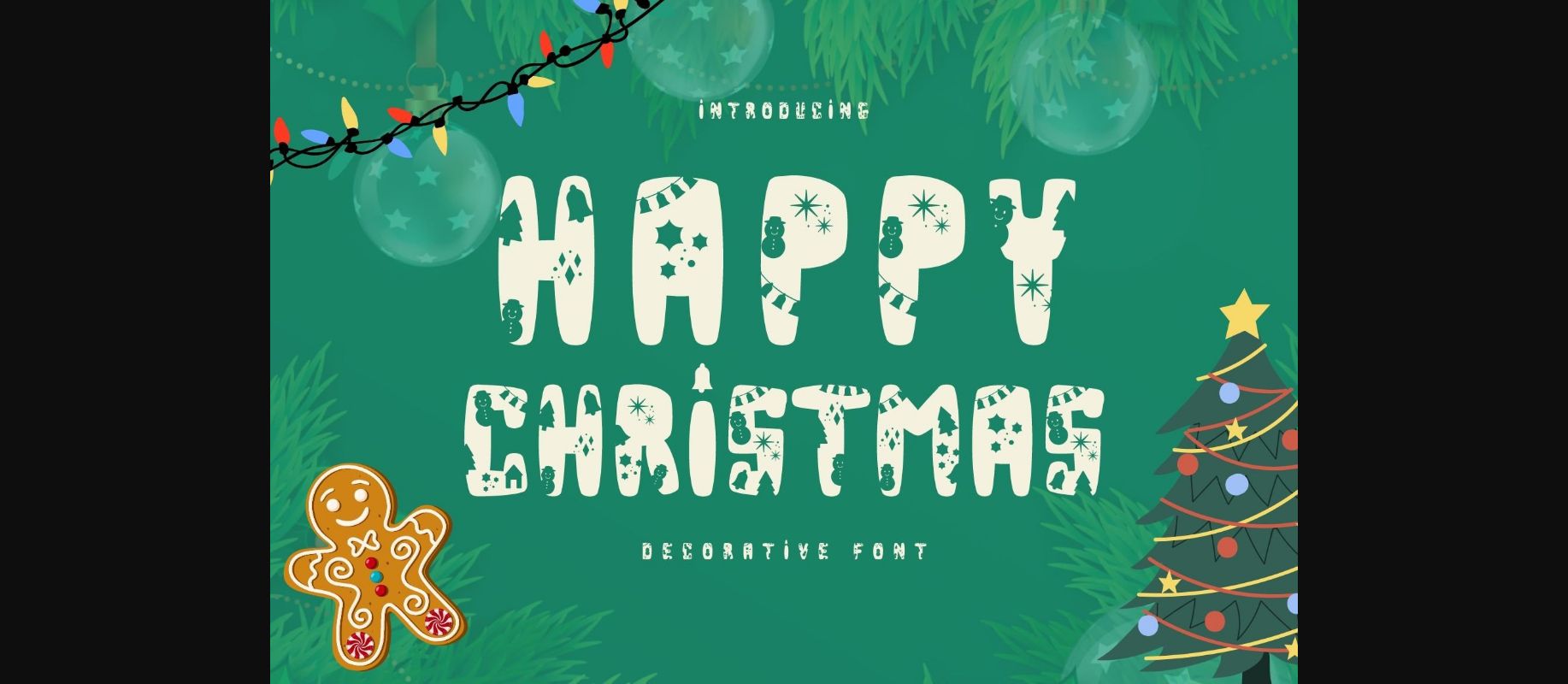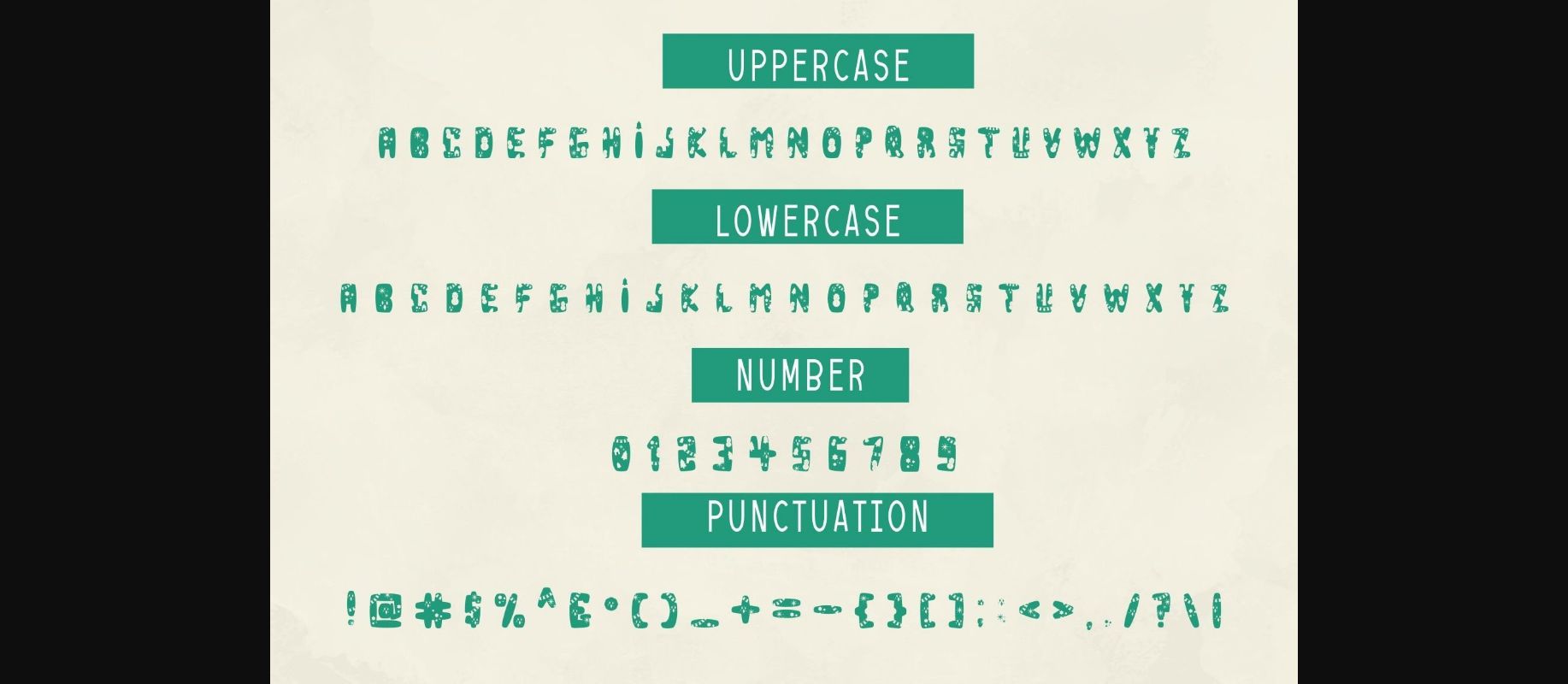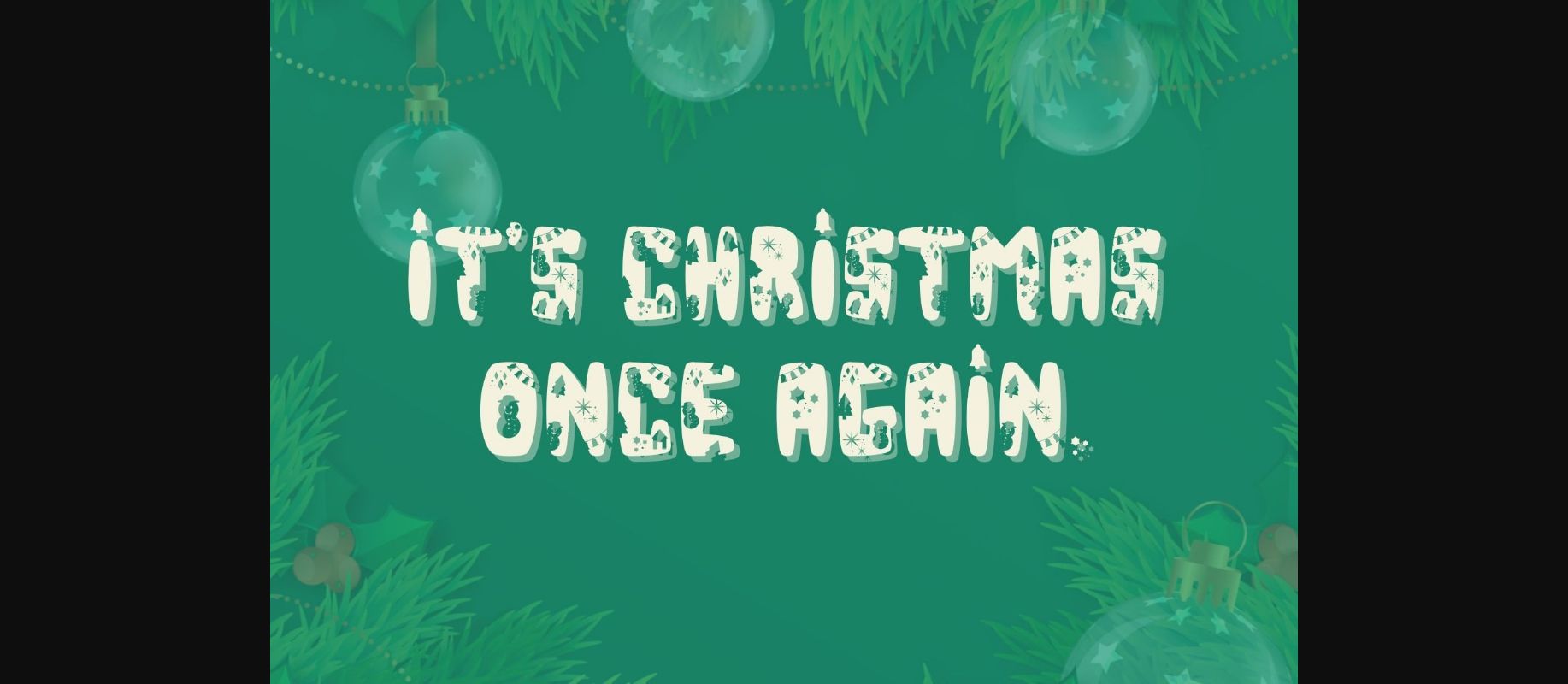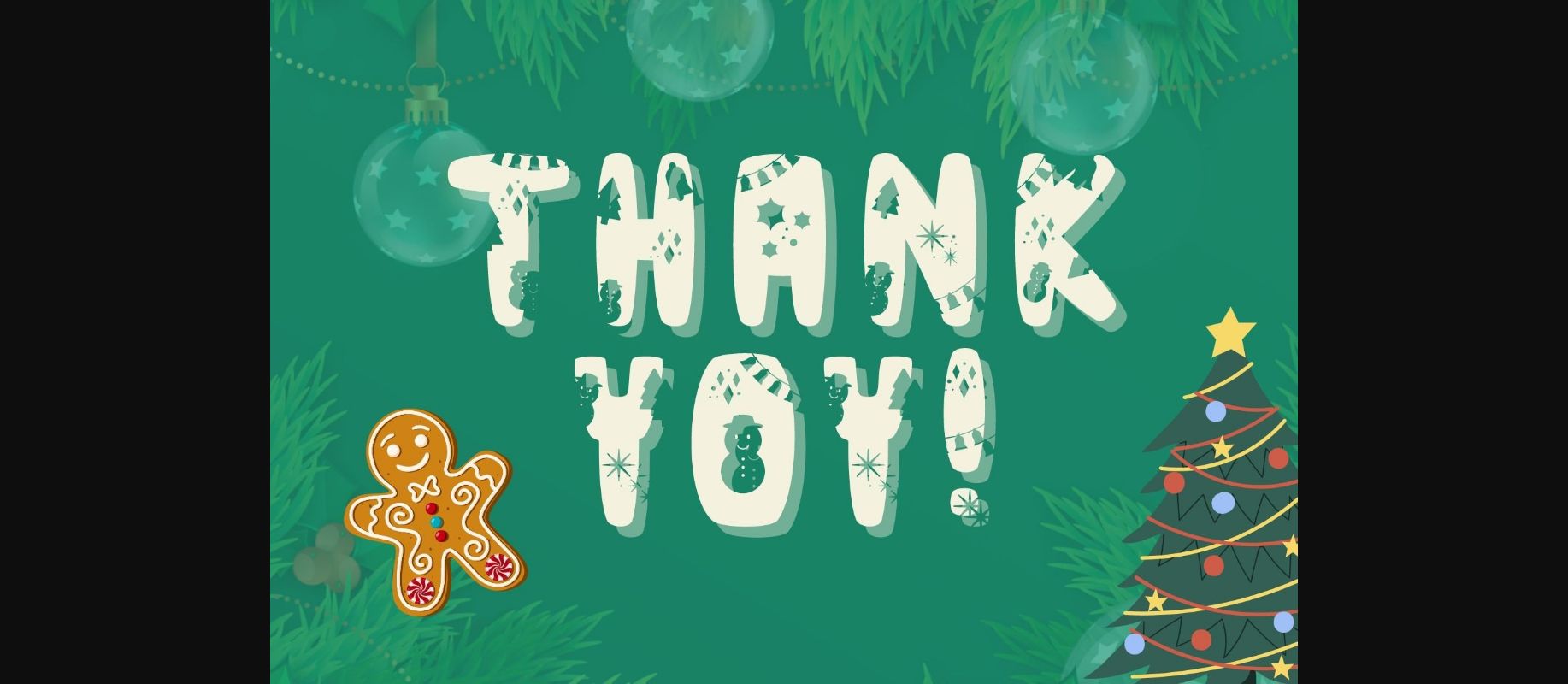
Happy Christmas Font
About Happy Christmas Font
Happy Christmas is a cute Christmas-themed decorative font. It embodies playfulness and authenticity and is the perfect choice for all your favorite projects.. Add it to any of your designs, and enjoy the results!